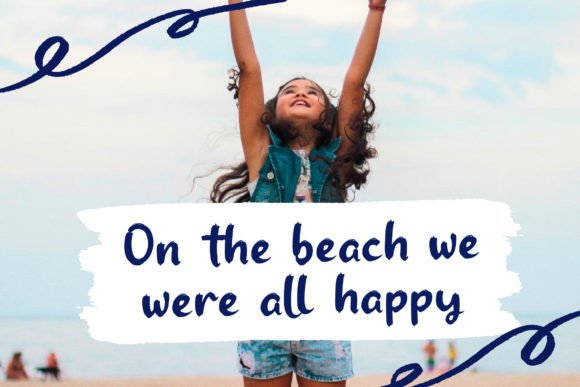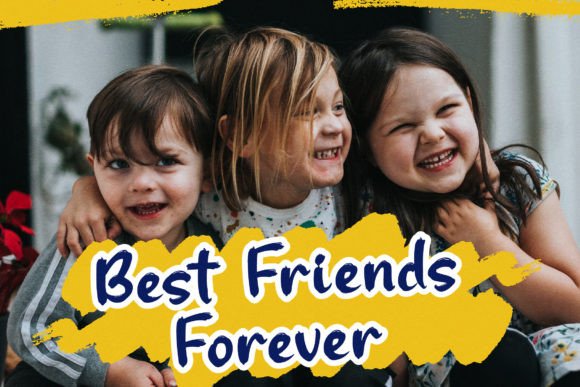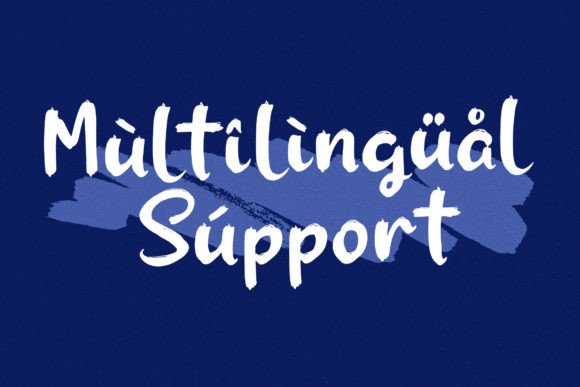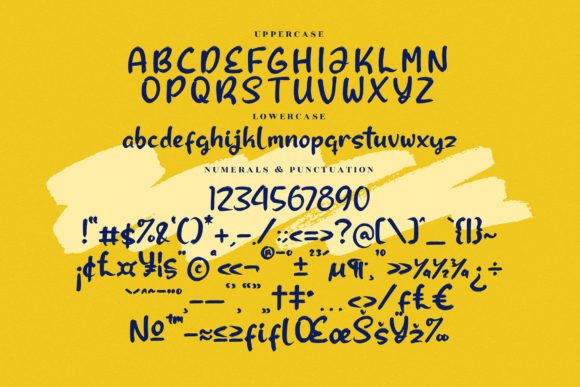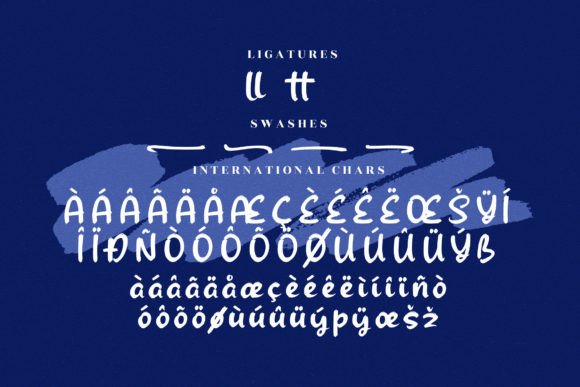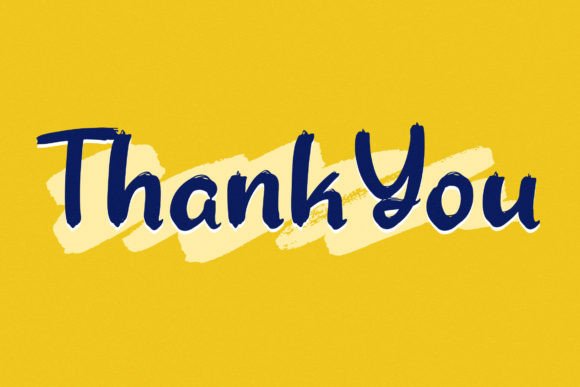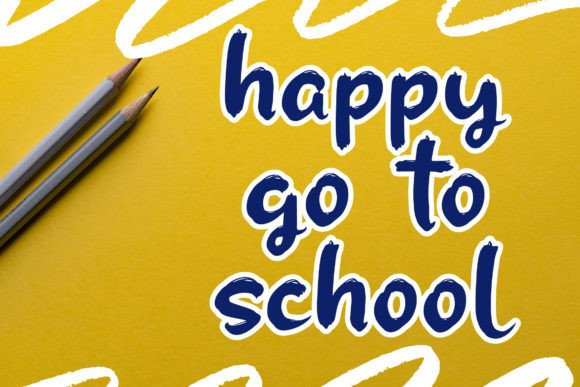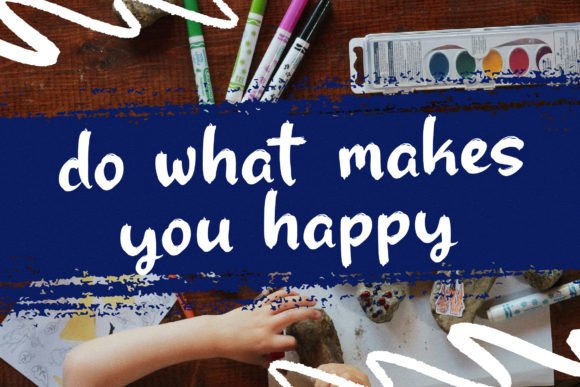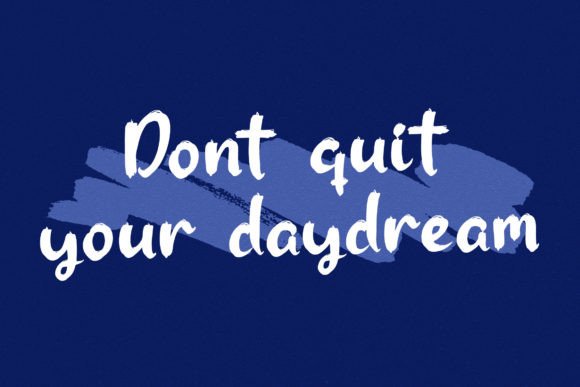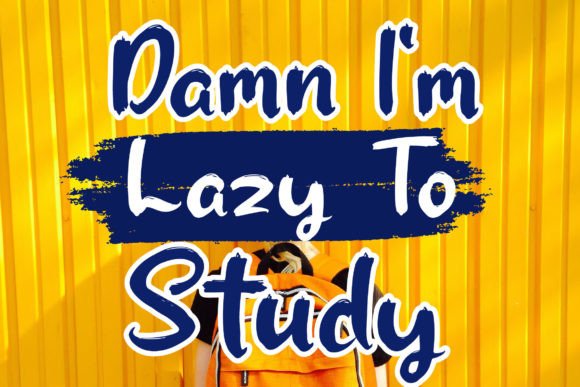
Zoey Elizabeth Font
About Zoey Elizabeth Font
Zoey Elizabeth is an amazing handwritten font that brings a unique and beautiful touch to a wide array of design projects. Its versatility makes it suitable for various creative endeavors, making it a go-to choice for designers looking to infuse a special and distinctive aesthetic into their work.
Whether you’re working on logos, branding projects, homeware designs, product packaging, mugs, quotes, posters, shopping bags, T-shirts, book covers, name cards, invitation cards, greeting cards, labels, photography, watermarks, or special events, Zoey Elizabeth stands out as a font that can elevate the visual appeal of your projects.
The charm of Zoey Elizabeth lies in its carefully crafted letterforms, creating a visual language that is both stylish and approachable. The handwritten touch adds a personal and authentic feel, making it suitable for projects that require a beautiful and unique aesthetic.
In branding, Zoey Elizabeth contributes to a memorable and stylish brand identity. Its versatility ensures that it can adapt to different industries and themes, maintaining a consistent and engaging visual tone.
For various print and digital materials, including posters, T-shirts, book covers, and more, Zoey Elizabeth brings a special touch that captures attention. The font’s ability to convey beauty and uniqueness makes it well-suited for projects that seek to stand out with a touch of elegance.
Whether you’re designing for special events, creating greeting cards, or adding watermarks to your photography, Zoey Elizabeth becomes a versatile tool that enhances the overall aesthetic. Its amazing handwritten style adds a layer of creativity and sophistication to your lovely projects.
In summary, Zoey Elizabeth is more than just a font; it’s a design asset that brings beauty and versatility to a wide range of creative projects. Whether you’re working on branding, print materials, or special events, Zoey Elizabeth is ready to add a touch of elegance and uniqueness to your designs.